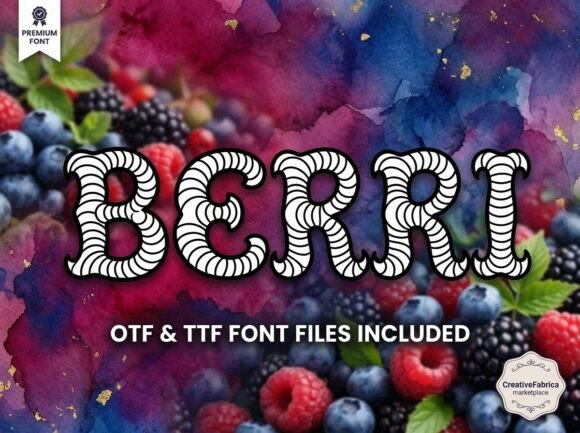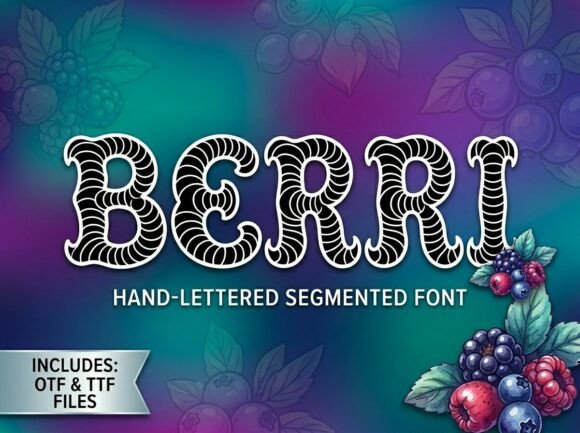
The Groovy World of Berri Font: A Designer’s Dream Come True
I’ll never forget the time I was working on a festival branding project for a client who wanted a bold, eye-catching font that would capture the essence of their psychedelic-themed event. I scoured the internet for hours, trying to find the perfect fit, but nothing seemed quite right. That was until I stumbled upon Berri Font – a mesmerizing display typeface that embodies an organic-and-psychedelic soul.
What Makes Berri Font So Special?
Berri Font is a game-changer for designers, crafters, and creative hobbyists looking to add a touch of psychedelic flair to their projects. This font features bold, rounded letterforms filled with a dense tapestry of rhythmic, undulating lines that mimic the hypnotic patterns of wood grain or topographical maps. Its heavy structural weight and vibrant personality make it the perfect choice for independent festival branding, creative studio logos, retro-inspired apparel, and high-impact social media headers.
My Honest Review of Berri Font
- ✅ Unique and eye-catching design that’s sure to turn heads
- ✅ Highly versatile and can be used for a wide range of projects
- ✅ Easy to read, even in large sizes
- ✅ Perfect for creating bold, statement pieces
- ⚠️ May not be suitable for body text or small font sizes due to its bold and decorative nature
- ⚠️ Limited use of uppercase letters, which may limit its use for certain projects
The Backstory of Berri Font
Berri Font was designed by a team of creatives who wanted to capture the essence of psychedelic art and design. Inspired by the bold, colorful patterns of wood grain and topographical maps, they created a font that would embody the organic-and-psychedelic soul of the 1960s and 1970s. With its bold, rounded letterforms and rhythmic, undulating lines, Berri Font is a true original that’s sure to make a statement.
| Font Name | Berri Font |
| Author | lawboomer |
Q: What is Berri Font and what is it used for?
A: Berri Font is a display typeface that captures an organic-and-psychedelic soul. It’s perfect for independent festival branding, creative studio logos, retro-inspired apparel, and high-impact social media headers.
Q: Can I use Berri Font for body text?
A: While Berri Font is a beautiful and eye-catching font, it may not be suitable for body text or small font sizes due to its bold and decorative nature.
Q: Is Berri Font easy to read?
A: Yes, Berri Font is surprisingly easy to read, even in large sizes. Its bold, rounded letterforms make it perfect for creating statement pieces that still convey a clear message.